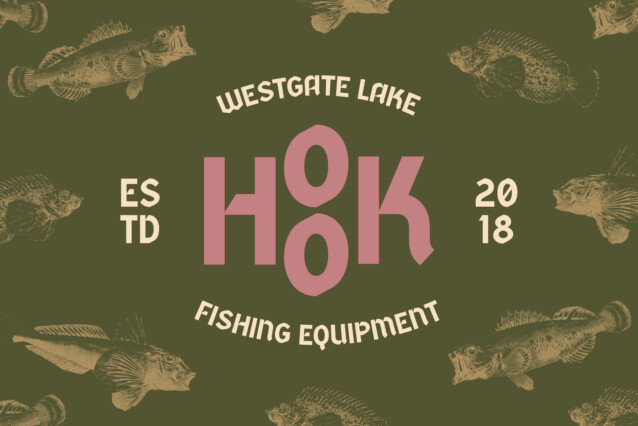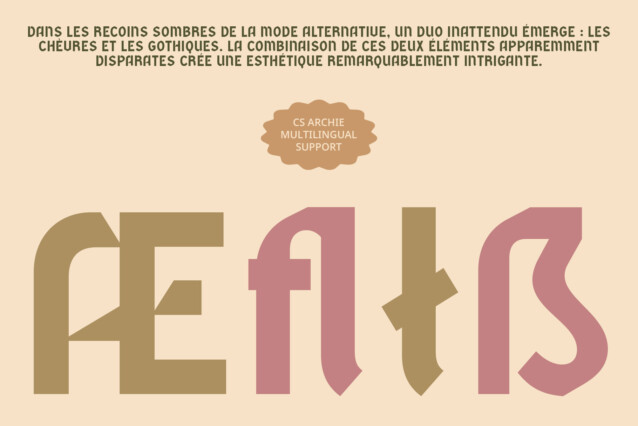
CS Archie Font
CS Archie Font is a modern Blackletter display sans serif font that blends classic elegance with bold, contemporary visual strength. Featuring prominent, bold characters, this font creates a sophisticated and dominant presence that commands attention.
Striking and Sophisticated Impression
The bold Blackletter design of CS Archie ensures a strong and authoritative impression, making it ideal for high-impact branding, formal invitations, and promotional materials. Its refined letterforms exude prestige and elegance, elevating the visual appeal of any project.